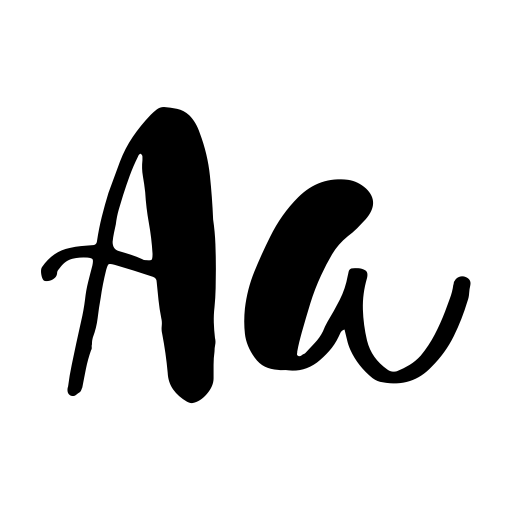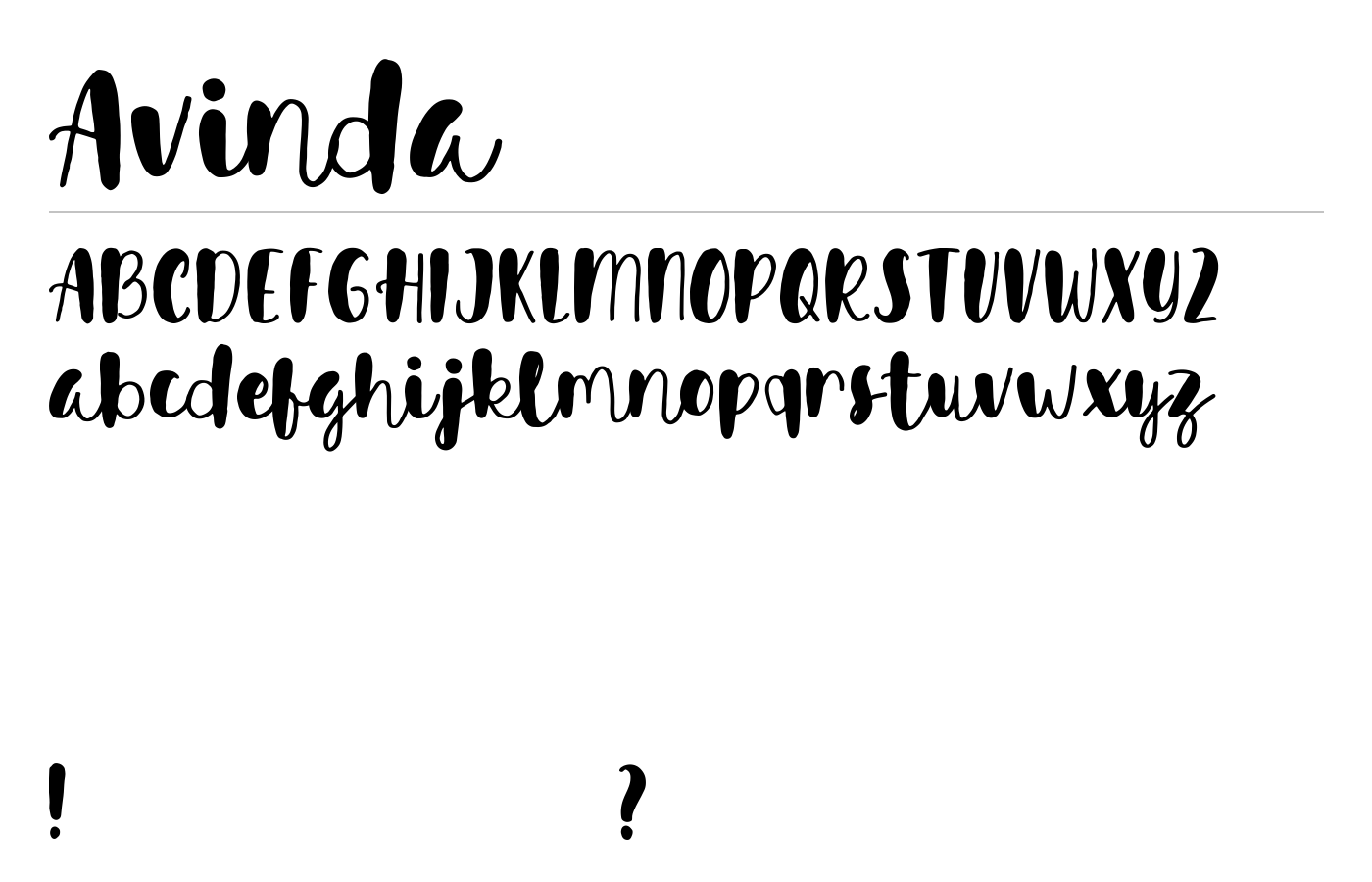
Avinda is a playful and modern script font with a hand-drawn feel, featuring bold, rounded strokes and lively, casual letterforms. Its friendly style makes it perfect for creative branding, invitations, and projects that want to convey a warm, approachable personality. This font works especially well in logos, social media graphics, and packaging where a personal, handcrafted touch is desired.
Avinda Font
About Avinda Font